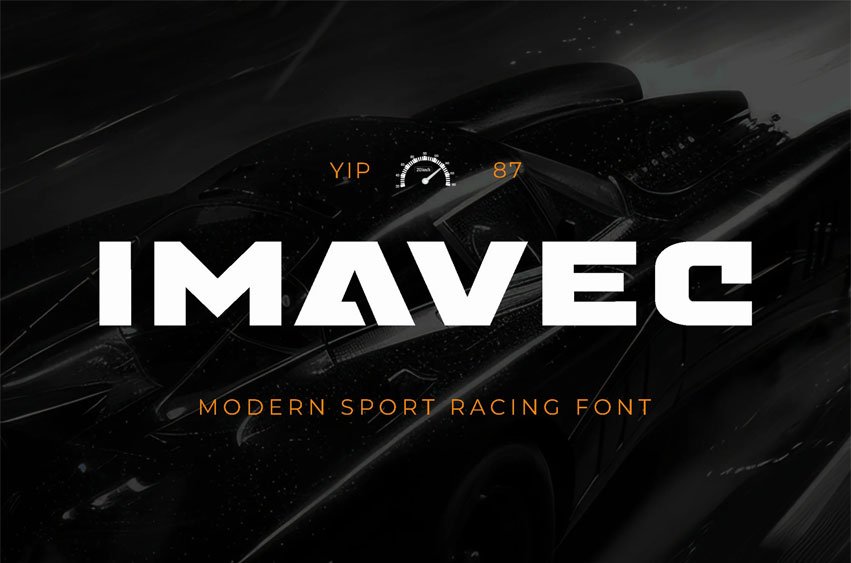
Imavec Font is a bold sport font engineered for maximum visual impact. It is a Clean Minimalist Modern Expanded Bold Sans Serif, designed specifically for logos, branding, headers/headline, game, music, techno, urban, college, race car, and sport branding.